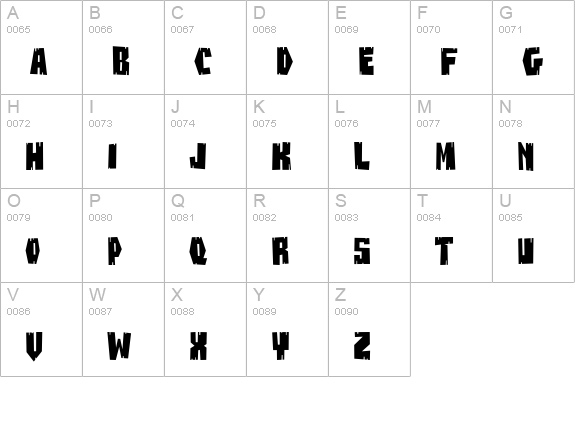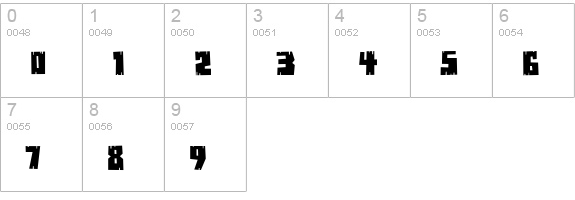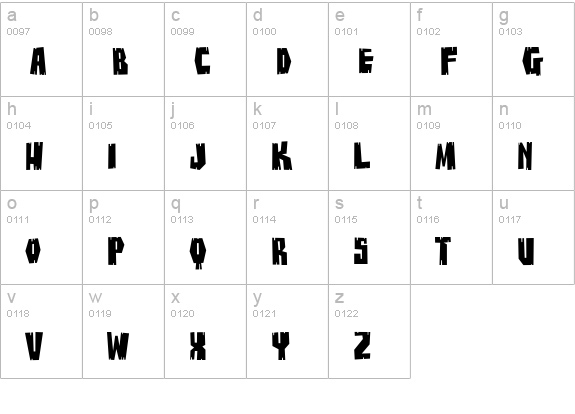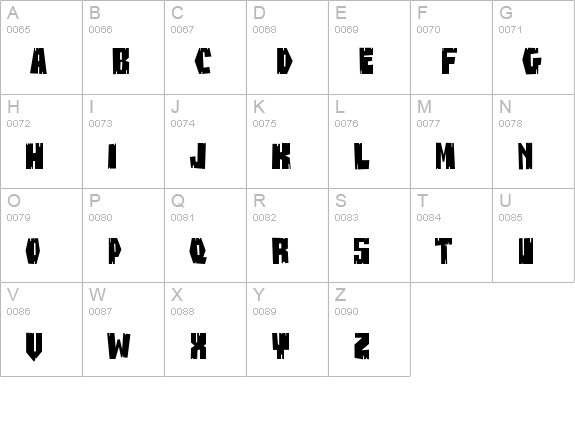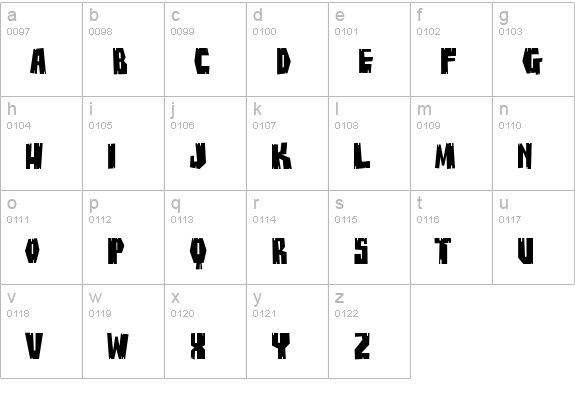
BuzzSawChippedAOE font is a striking display font that is sure to make a bold statement in any design project. Its sharp edges and rugged appearance give it a unique and edgy look that sets it apart from other fonts. Perfect for headlines, posters, logos, and more, this font will grab the attention of your audience and leave a lasting impression. The best part? BuzzSawChippedAOE font is completely free to download at FontsMarket.com. Whether you're a designer looking to add a new font to your collection or just someone who loves experimenting with different typography styles, this font is a must-have. Download it today and see how it can elevate your designs to the next level.